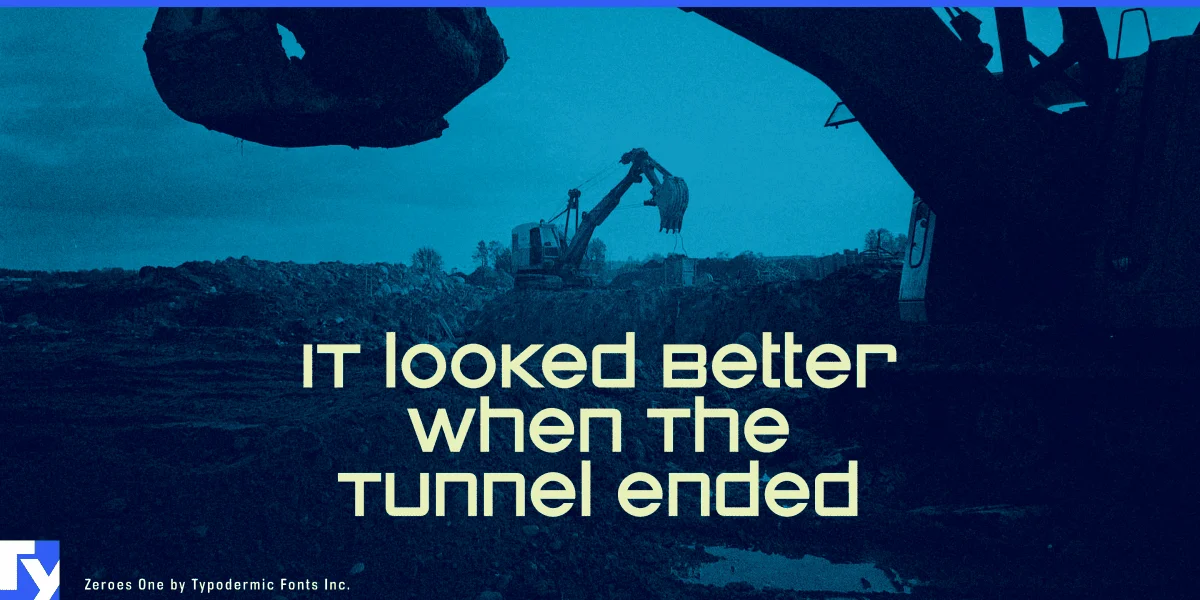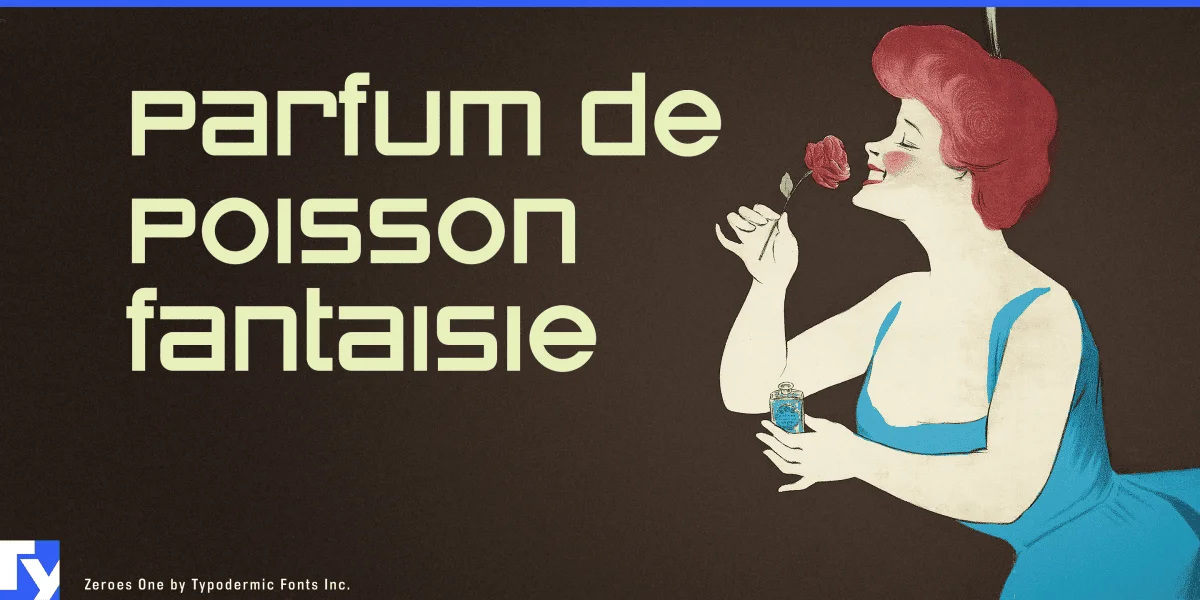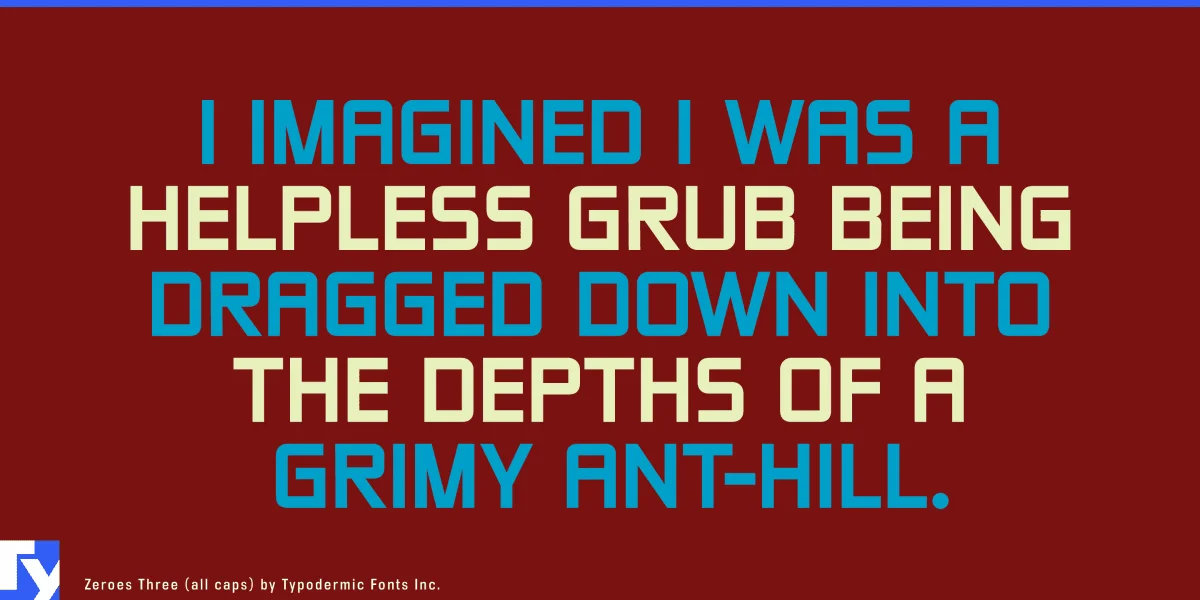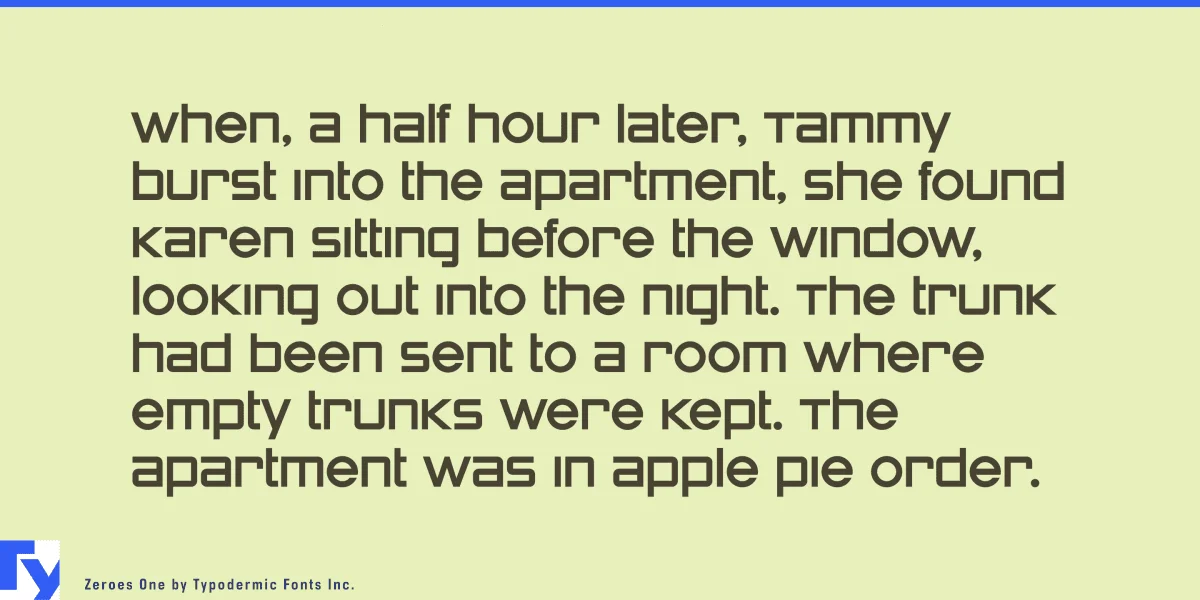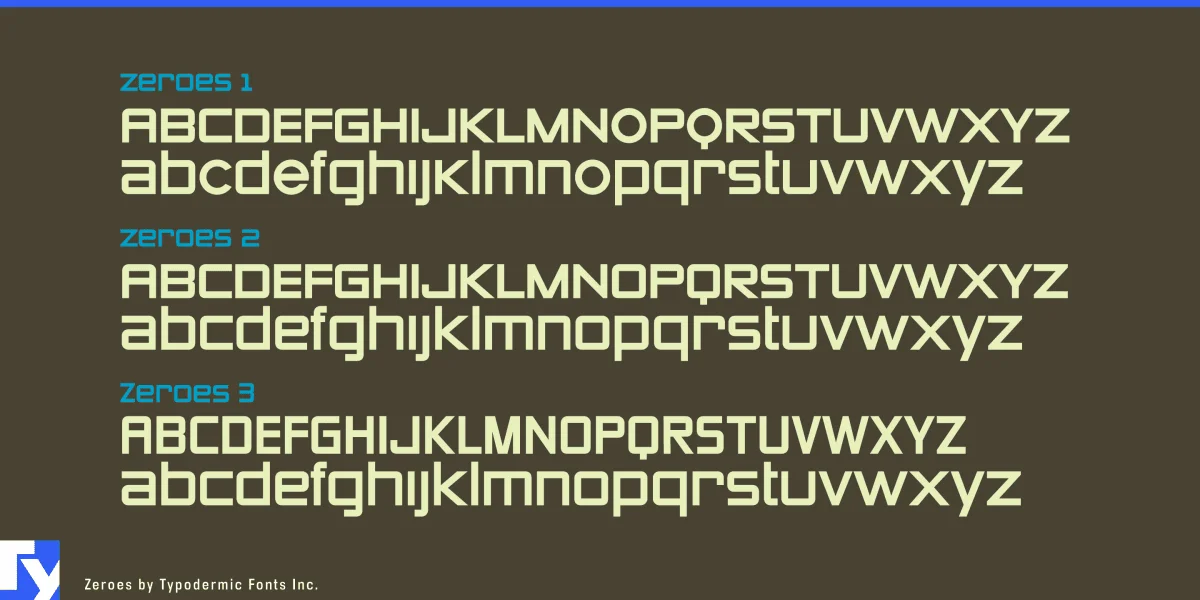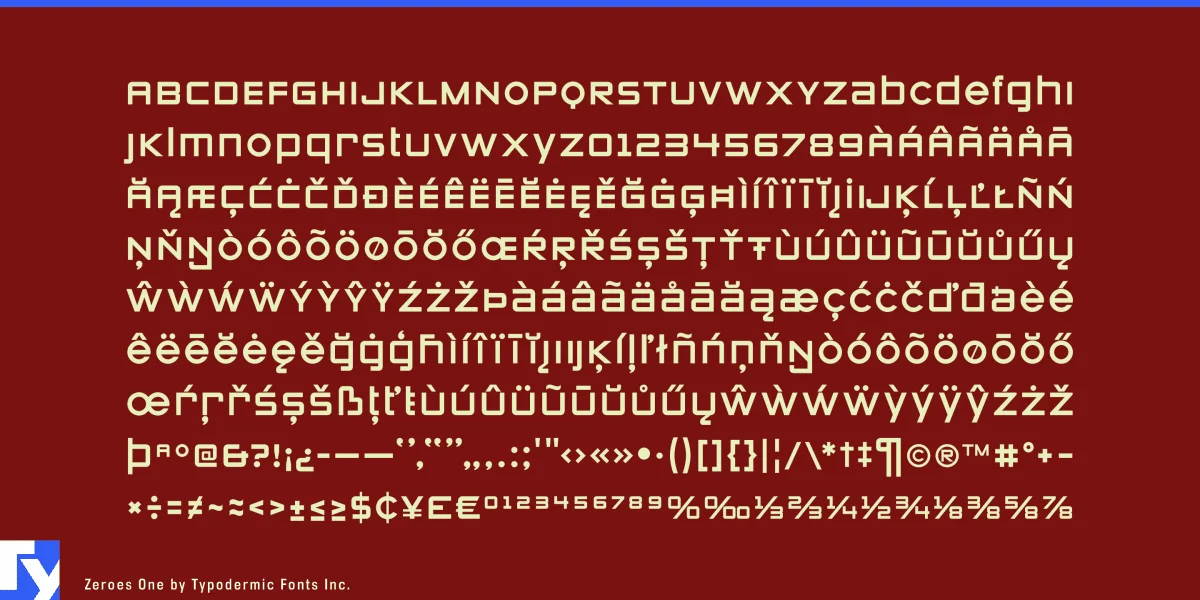
Zeroes is a collection of geometric display fonts influenced by fashion. Their focus on form and function will lend your message a distinguished and graceful voice.
Most Latin-based European writing systems are supported, including the following languages. Afaan Oromo, Afar, Afrikaans, Albanian, Alsatian, Aromanian, Aymara, Bashkir (Latin), Basque, Belarusian (Latin), Bemba, Bikol, Bosnian, Breton, Cape Verdean, Creole, Catalan, Cebuano, Chamorro, Chavacano, Chichewa, Crimean Tatar (Latin), Croatian, Czech, Danish, Dawan, Dholuo, Dutch, English, Estonian, Faroese, Fijian, Filipino, Finnish, French, Frisian, Friulian, Gagauz (Latin), Galician, Ganda, Genoese, German, Greenlandic, Guadeloupean Creole, Haitian Creole, Hawaiian, Hiligaynon, Hungarian, Icelandic, Ilocano, Indonesian, Irish, Italian, Jamaican, Kaqchikel, Karakalpak (Latin), Kashubian, Kikongo, Kinyarwanda, Kirundi, Kurdish (Latin), Latvian, Lithuanian, Lombard, Low Saxon, Luxembourgish, Maasai, Makhuwa, Malay, Maltese, Māori, Moldovan, Montenegrin, Ndebele, Neapolitan, Norwegian, Novial, Occitan, Ossetian (Latin), Papiamento, Piedmontese, Polish, Portuguese, Quechua, Rarotongan, Romanian, Romansh, Sami, Sango, Saramaccan, Sardinian, Scottish Gaelic, Serbian (Latin), Shona, Sicilian, Silesian, Slovak, Slovenian, Somali, Sorbian, Sotho, Spanish, Swahili, Swazi, Swedish, Tagalog, Tahitian, Tetum, Tongan, Tshiluba, Tsonga, Tswana, Tumbuka, Turkish, Turkmen (Latin), Tuvaluan, Uzbek (Latin), Venetian, Vepsian, Võro, Walloon, Waray-Waray, Wayuu, Welsh, Wolof, Xhosa, Yapese, Zapotec Zulu and Zuni.